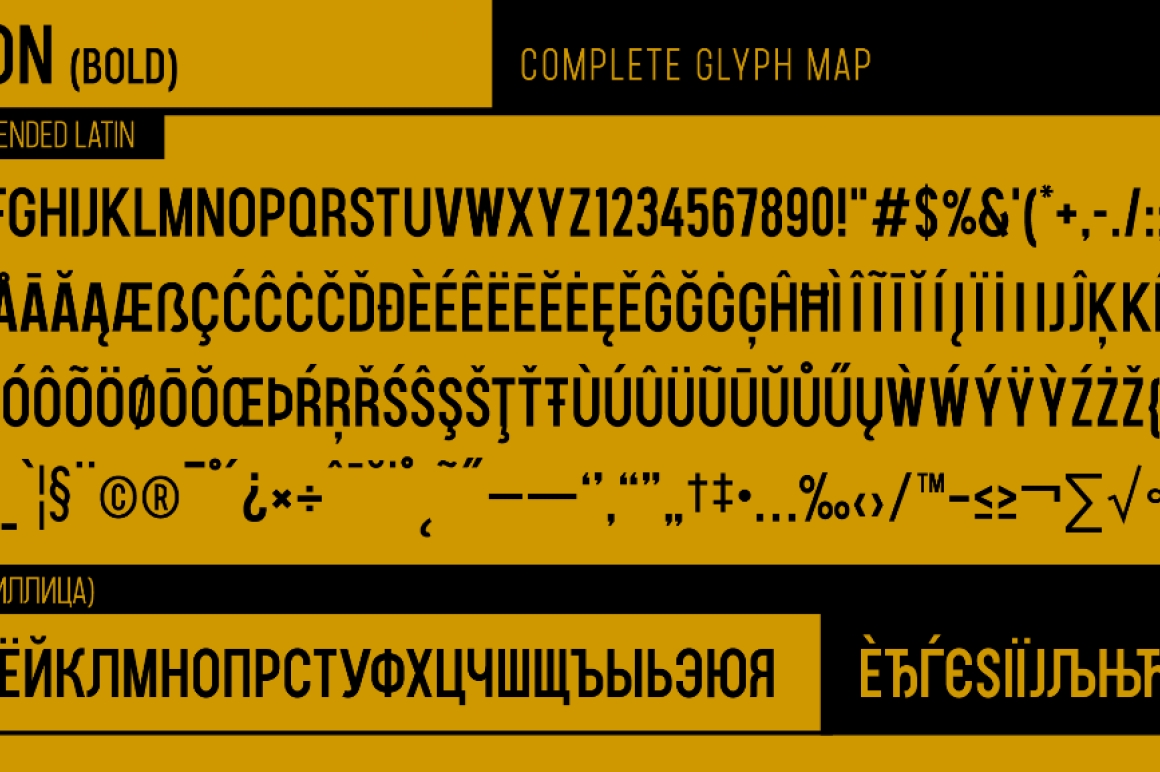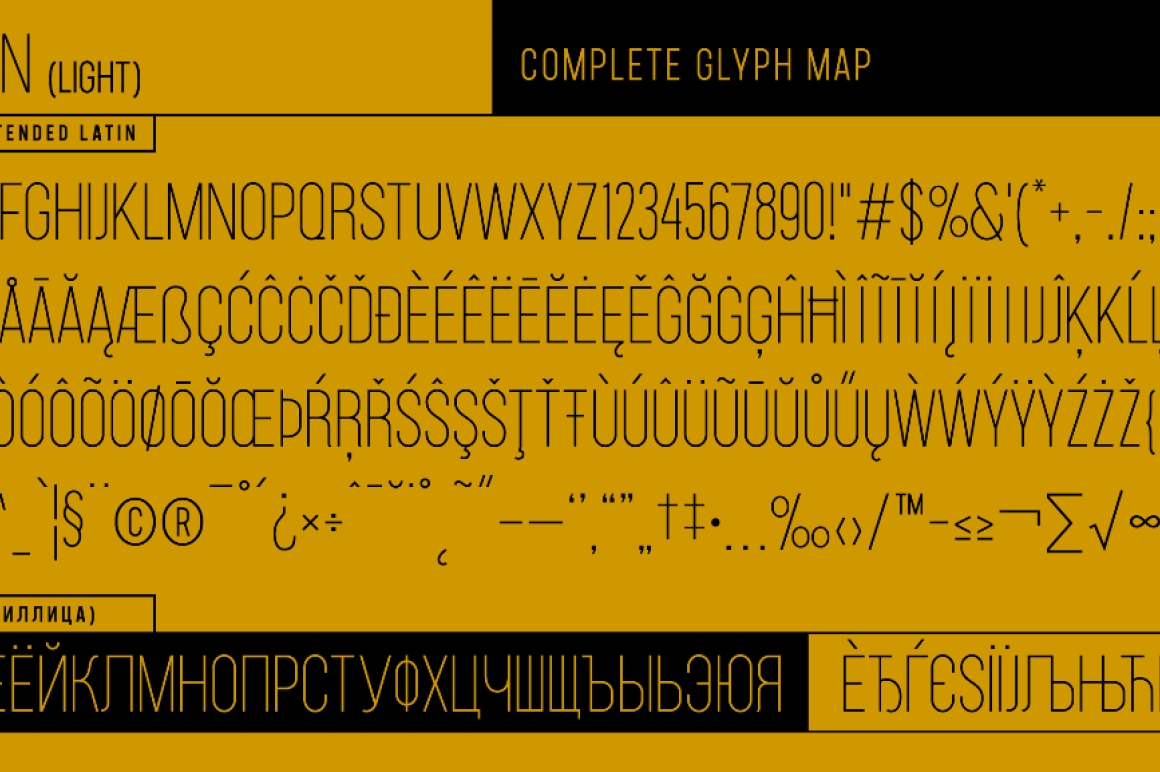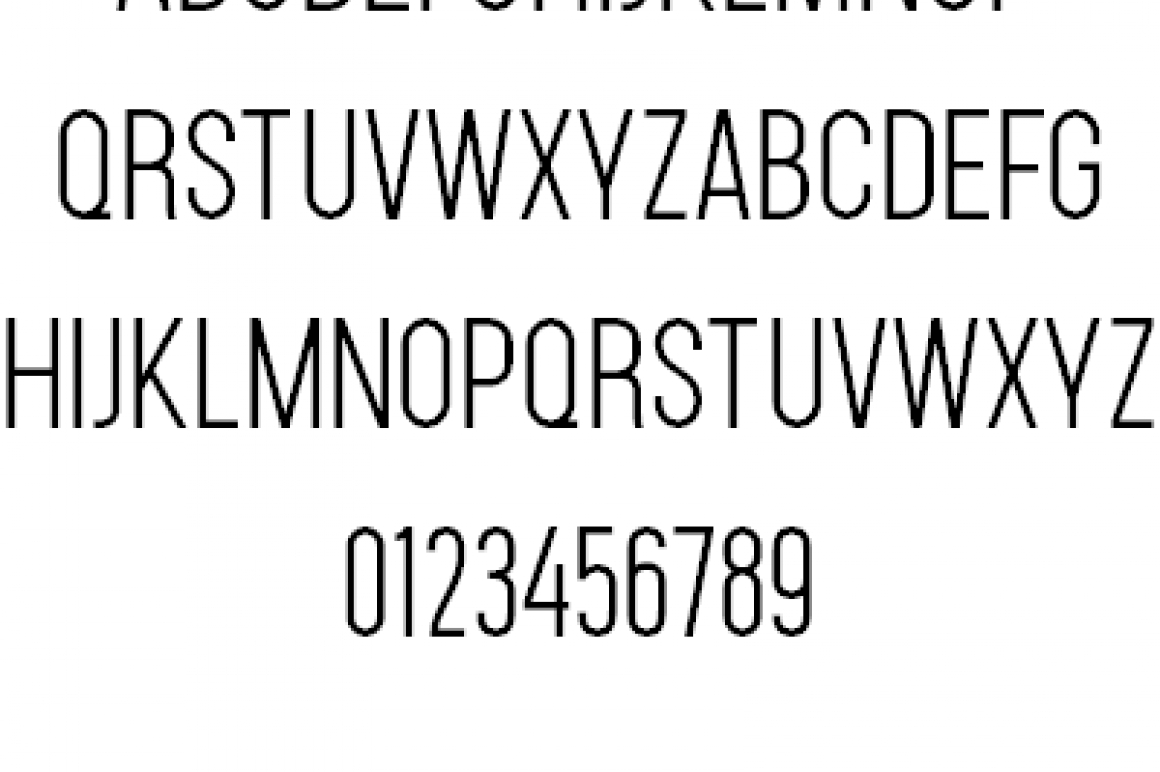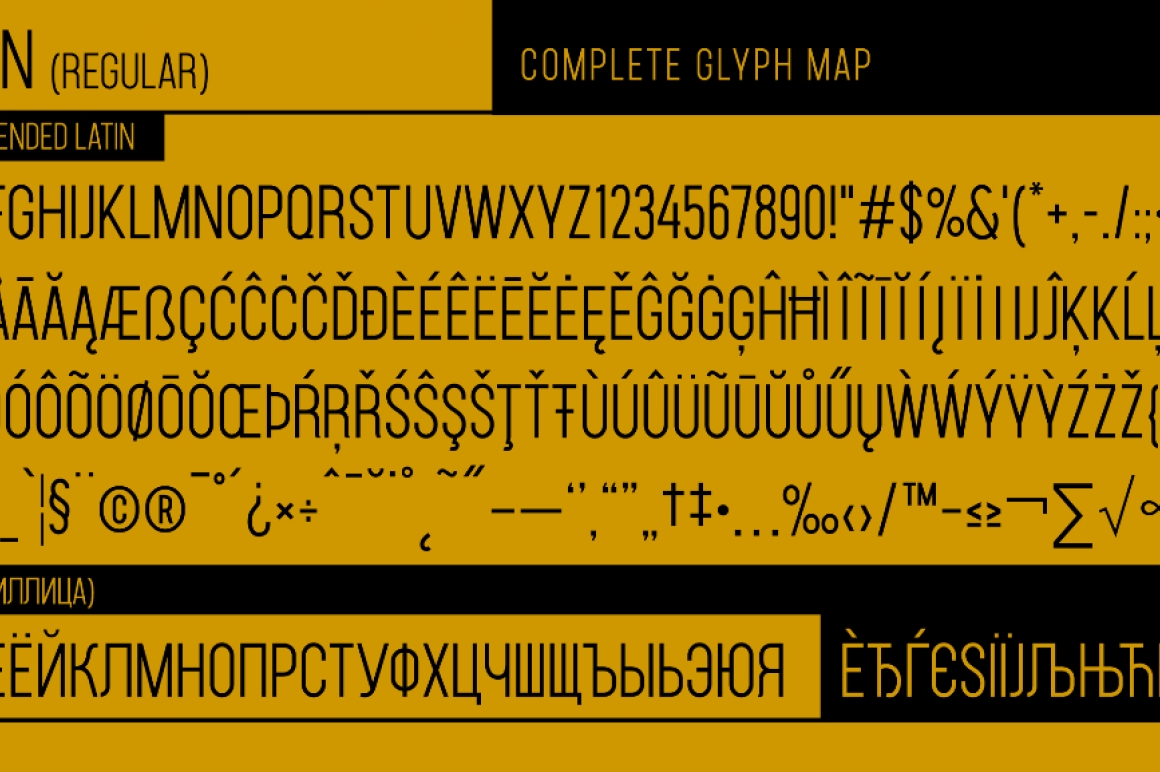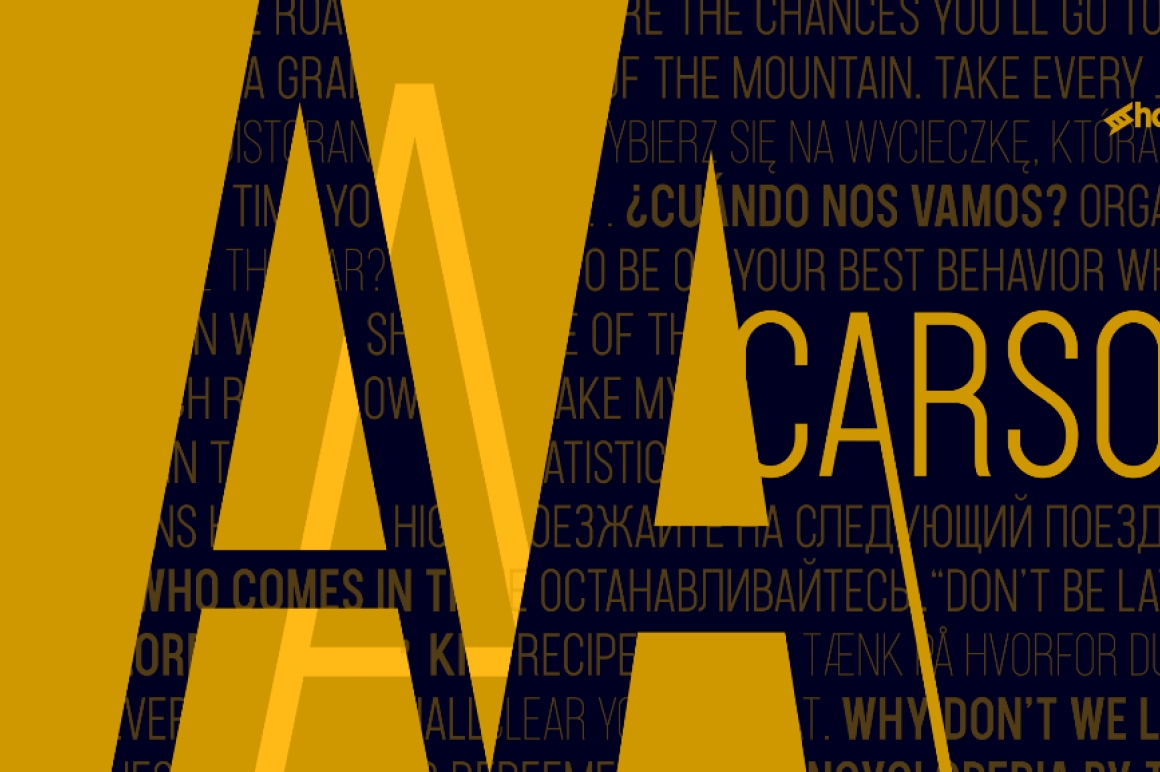
Carson Font
by Dennis Ludlow
Carson is an all caps display family available in 3 weights designed for anytime use. Basic in construction, it features smooth and even lines with a consistent line weight. The exception is in the bold version which features lighter strokes along some of the curves for a bit of contrast. This semi-condensed font family has a vertical nature to comfortably fill in tight spaces. Use Carson for a book, website subtitles, or a company logo.
Basic Latin, extended Latin, diacritics, Cyrillic, punctuation, and kerning are all included in the full version. The demo features basic Latin, limited punctuation, kerning, and numbers.